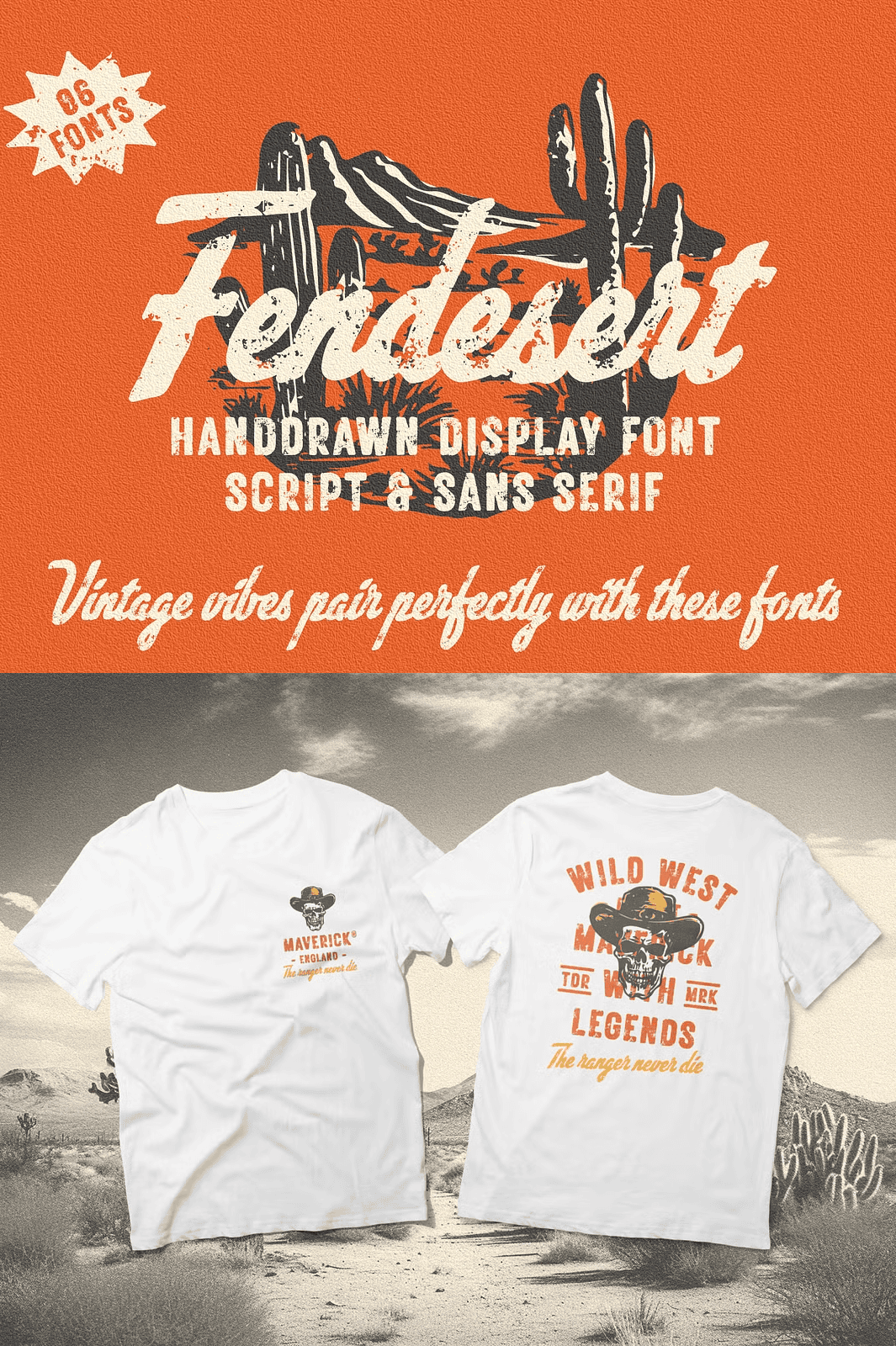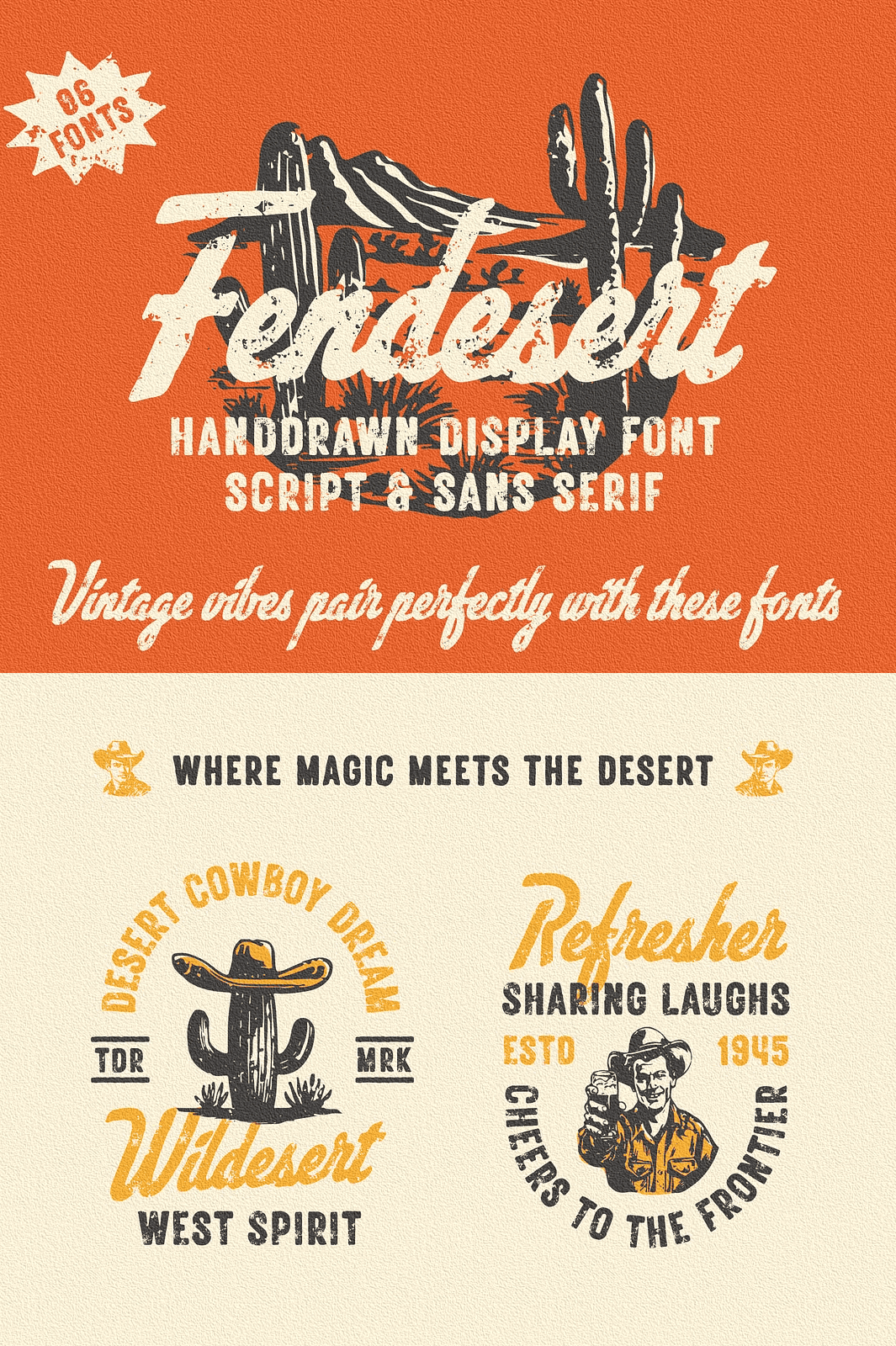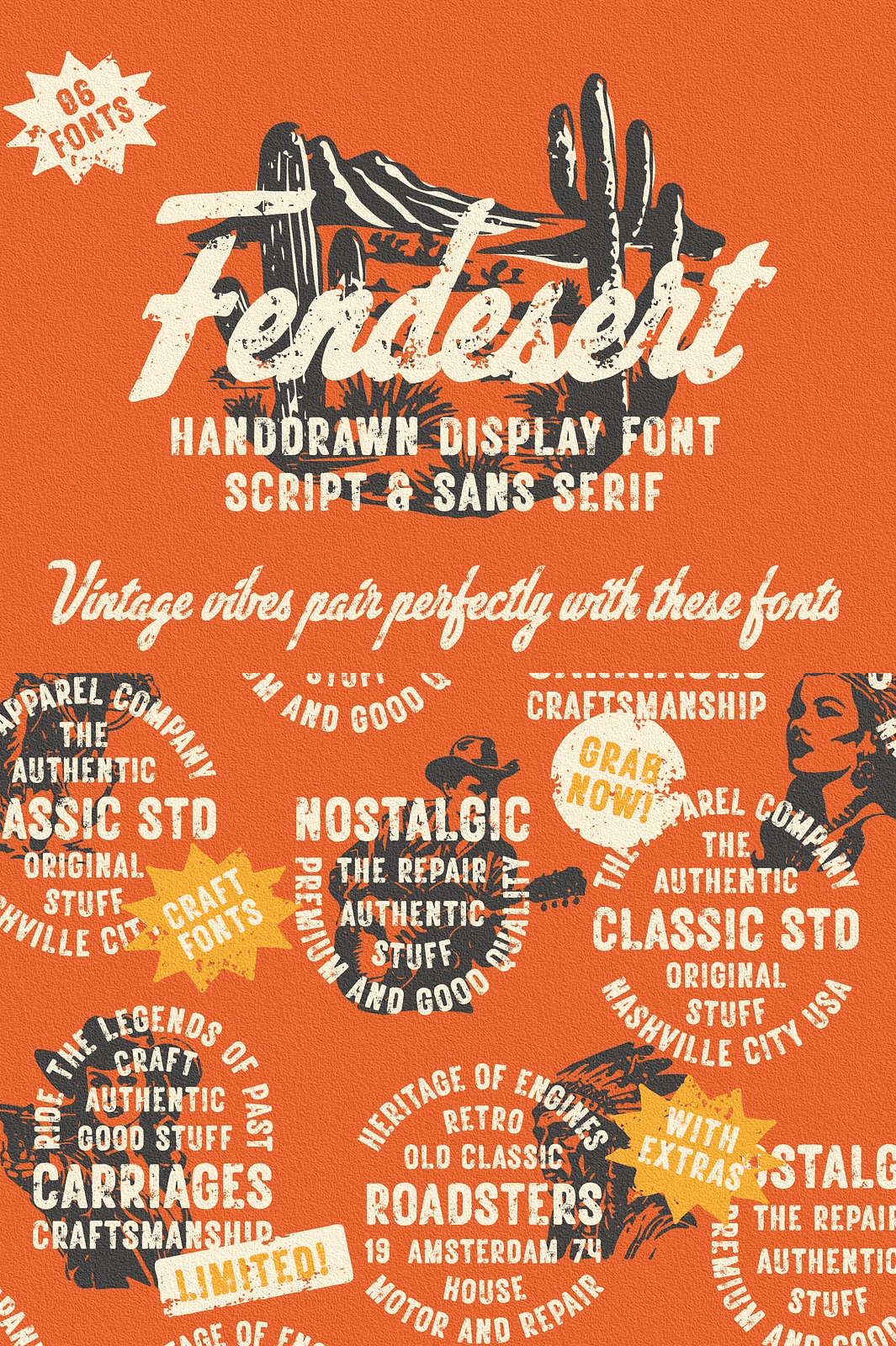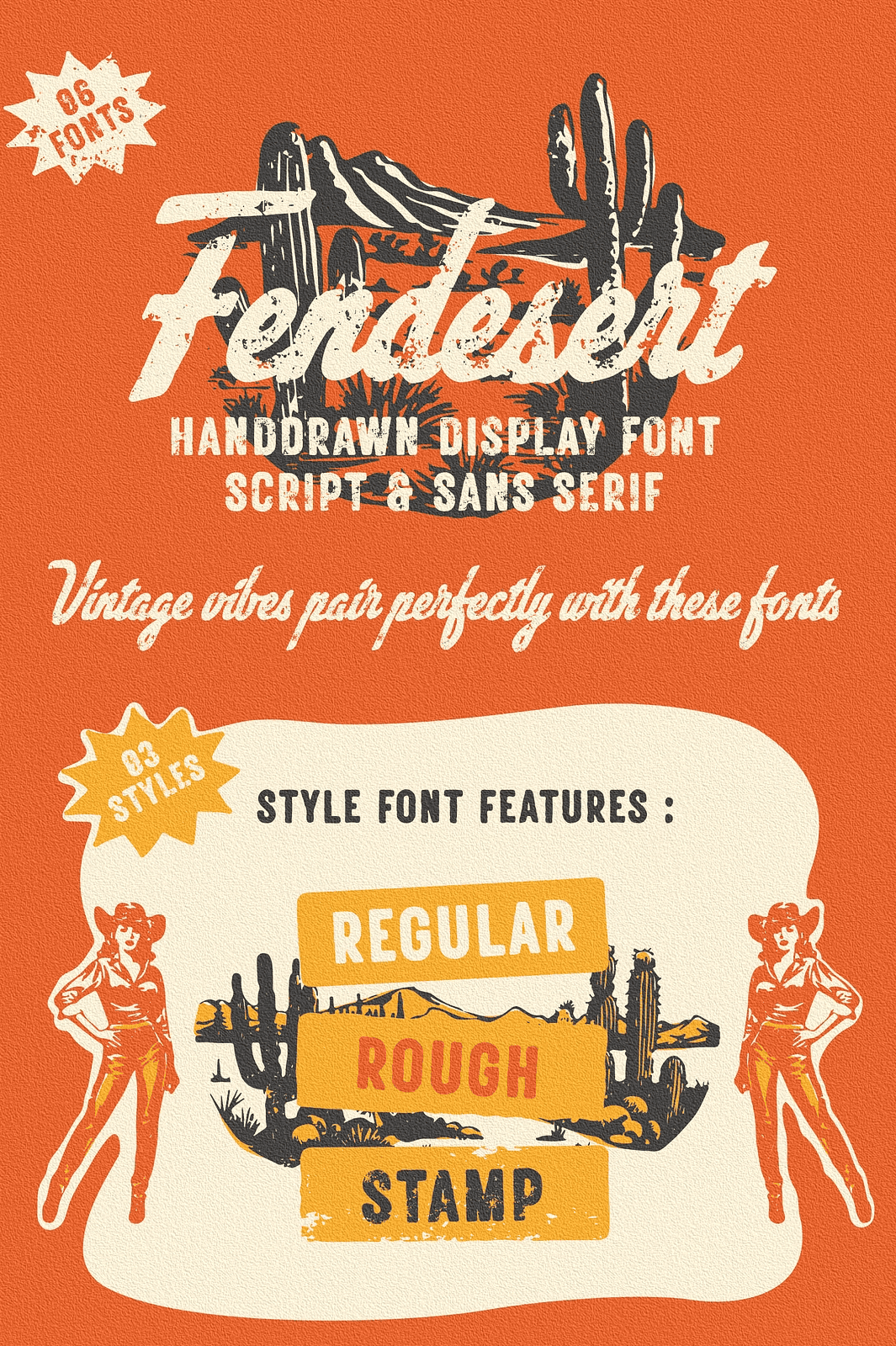
Command Attention with a Three-Style Vintage Typography System
Step into the world of classic frontier energy with **Fendesert**, a powerful font duo engineered for bold visual impact and creative versatility. This isn’t just a font it’s a complete design toolkit forged from vintage inspiration. You get **three unique styles** in each style family: **Regular**, **Rough**, and **Stamp**, each delivering a different texture and personality while maintaining seamless compatibility.
Whether you’re crafting a rugged logo, designing a band poster, or building a Western-themed apparel line, Fendesert gives you the typographic range to match every mood polished, weathered, or instantly iconic.
Unleash a Rich and Expressive Character Set
Fendesert goes beyond standard letters. The script font offers full access to **uppercase, lowercase, numerals, punctuation, symbols**, and a wide variety of **stylistic alternates**, all hand-crafted to feel authentic and alive. The sans serif component delivers **all-caps clarity**, powerful numerals, and clean punctuation ideal for impactful headlines, tags, and emblems.
– ✦ **320+ glyphs per font** — extensive character coverage across multiple language systems
– ✦ **Contextual alternates and ligatures** — create natural flow and professional-grade typography
– ✦ **Multilingual support** — fully functional with English, Spanish, French, German, Italian, Portuguese, Dutch, and more
– ✦ **PUA-encoded characters** — ensures full access to special symbols, dingbats, and custom glyphs
No missing letters. No formatting gaps. Just ready-to-use type with character.
Transform Your Project with 20 Exclusive Hand-Drawn Illustrations
Add authentic visual storytelling with **20 original hand-drawn western-style illustrations** included in the dingbat set. These designs range from cowboy hats and horseshoes to cacti, vintage signs, and boot prints — all matching the rugged elegance of the font family.
Use them as decorative accents, standalone icons, watermarks, or layered elements in design. Whether in a packaging label, a social media post, or a printed poster, these illustrations bring instant atmosphere and depth.
Dominate Branding, Apparel, and Creative Projects with Confidence
Fendesert is built for real-world design demands. It performs brilliantly across a full spectrum of projects:
– ✦ **Logo and branding identity** — make a lasting first impression with a vintage edge
– ✦ **Apparel & merchandise** — perfect for T-shirts, hats, mugs, and stickers
– ✦ **Event invitations and posters** — bring the Wild West to life
– ✦ **Packaging and product labels** — boost appeal with nostalgic flair
– ✦ **Digital content & UI elements** — integrate smoothly with modern design tools
Maximize Your Creative Impact with Smart Design Integration
– Use the **Rough style** for a worn-in, lived-in texture on vintage brochures or tattoo designs
– Choose **Stamp** for bold, high-contrast headlines that feel authentic and hand-pressed
– Pair **Regular script** with clean sans serif fonts for balance and contrast
– Adjust tracking slightly to enhance spacing and legibility in all-caps layouts
– Combine with sepia, dust, or paper texture overlays for maximum vintage authenticity
The possibilities are limitless all powered by a single, cohesive design language.